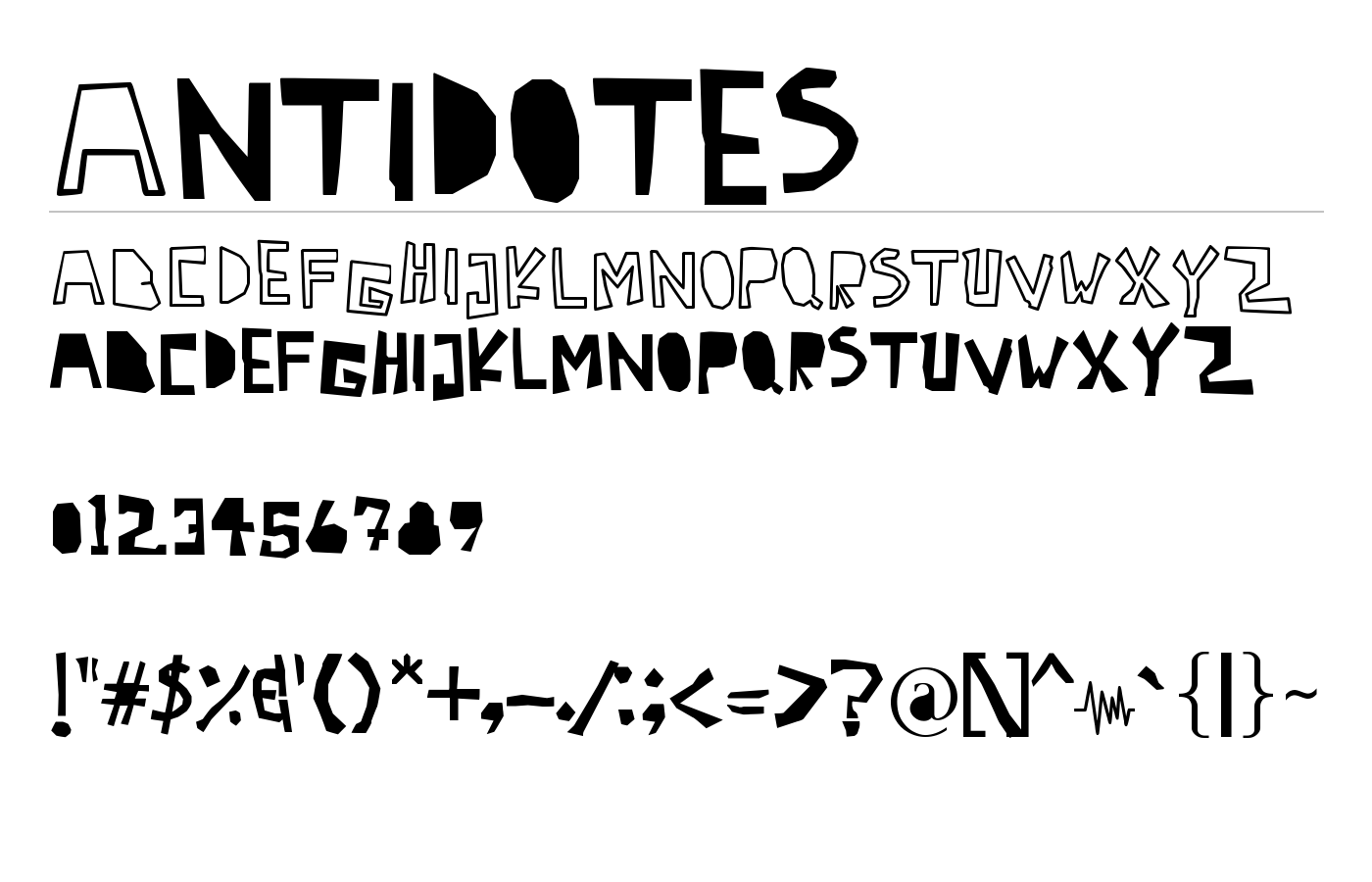
Antidotes Font is a quirky, bold sans serif typeface with an irregular, hand-drawn feel that gives it a playful and artistic character. Featuring unique, angular shapes with a mix of solid and outlined forms, it conveys creativity and individuality, making it ideal for eye-catching headlines, posters, and unconventional branding. This font’s distinct style works best in fun, informal contexts where a strong visual personality is desired.
Antidotes Font
About Antidotes Font